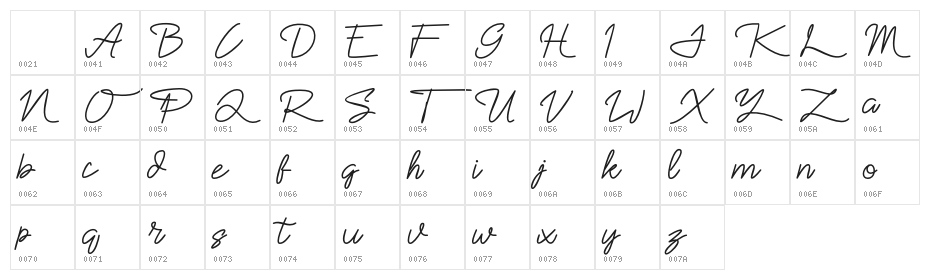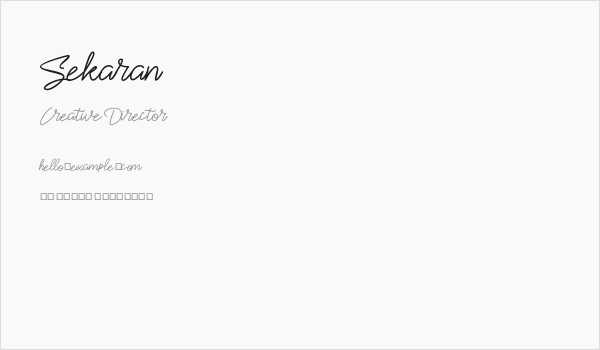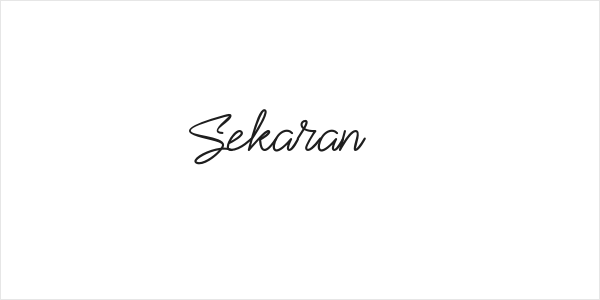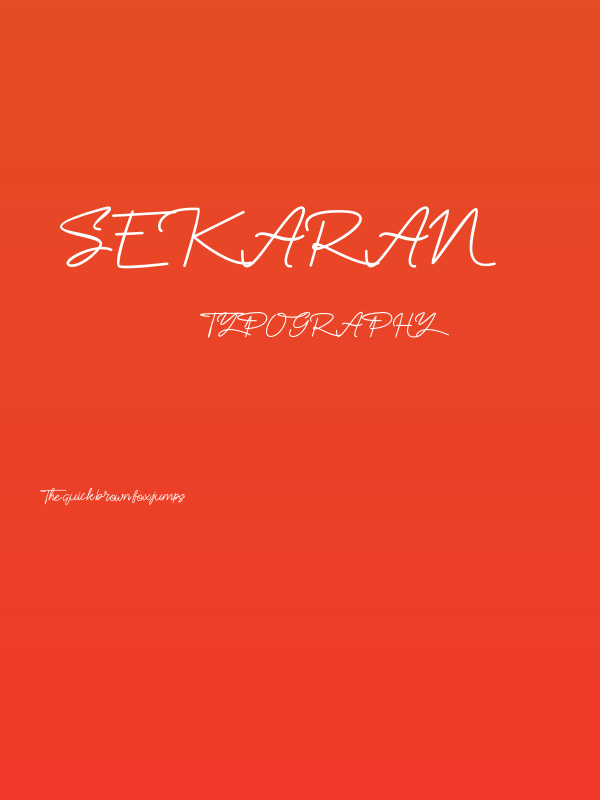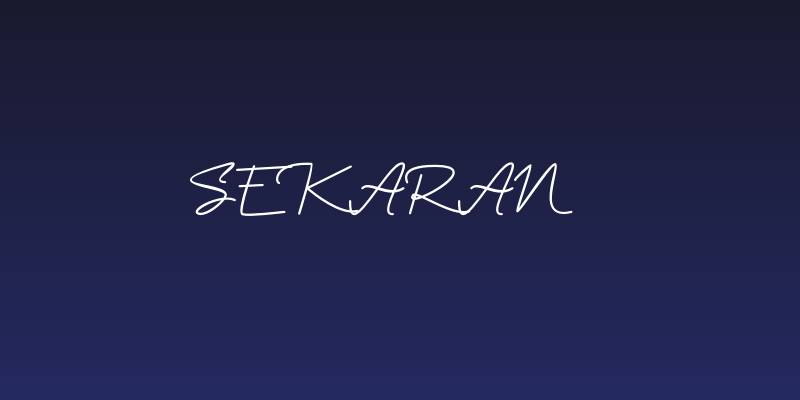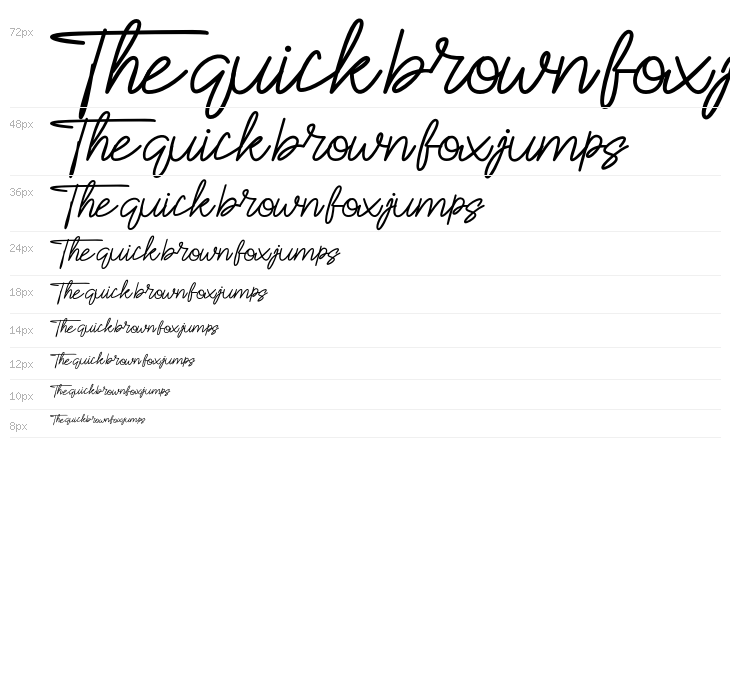
Sekaran Font
Sekaran Description
This font features a flowing, cursive style that mimics elegant handwriting. The uppercase letters are slightly slanted, with smooth, continuous strokes that connect seamlessly. The lowercase characters maintain a consistent flow, with rounded forms and a playful bounce that adds a dynamic feel. The overall appearance is both sophisticated and approachable, making it suitable for a variety of creative applications. The font's design emphasizes fluidity and grace, with each letter effortlessly transitioning into the next, creating a harmonious visual rhythm.
| Overall Style | Elegant, Handwritten |
| Proposed Projects | Ideal for wedding invitations, greeting cards, personal branding, and decorative quotes. |